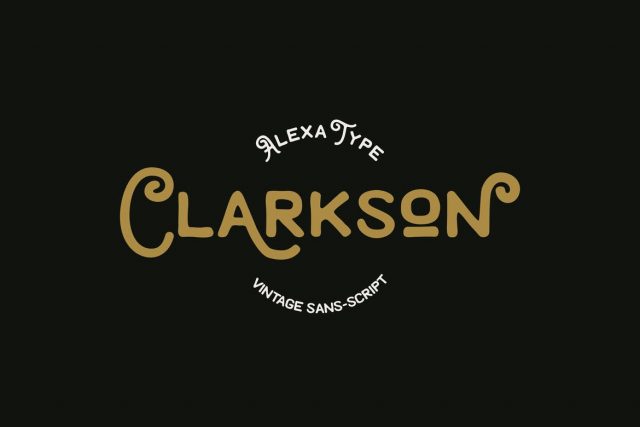
Clarkson is a masculine font. Combined from a simple cursive monoline and sans-serif in a rough stamp style. The imperfection brings a classic touch and elegance in it. and that, is a perfection.
Clarkson has alternates that work in his lowercase. It’s up to 7 different variations to get you creative.
The font works perfectly as a title, headlines, logotype, monograms, and quotes. There are 19 multilingual support, so the broad audience is absolutely yours to reach.